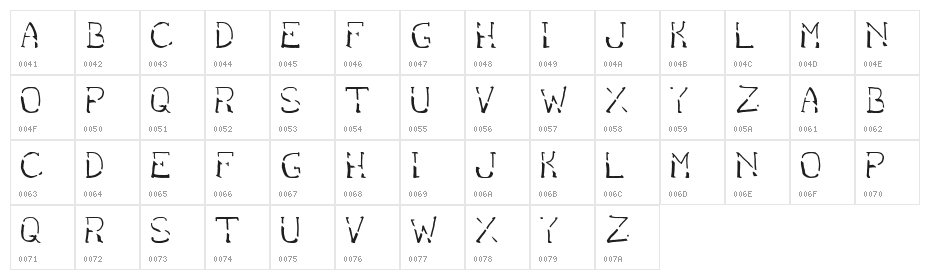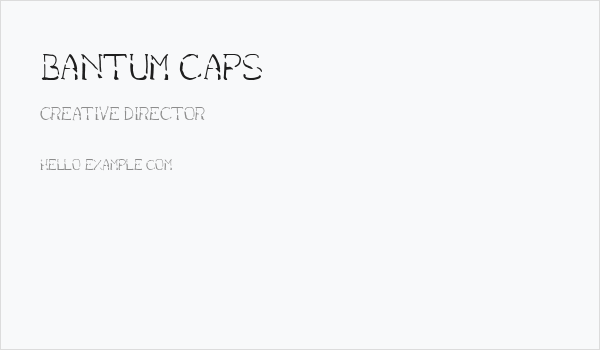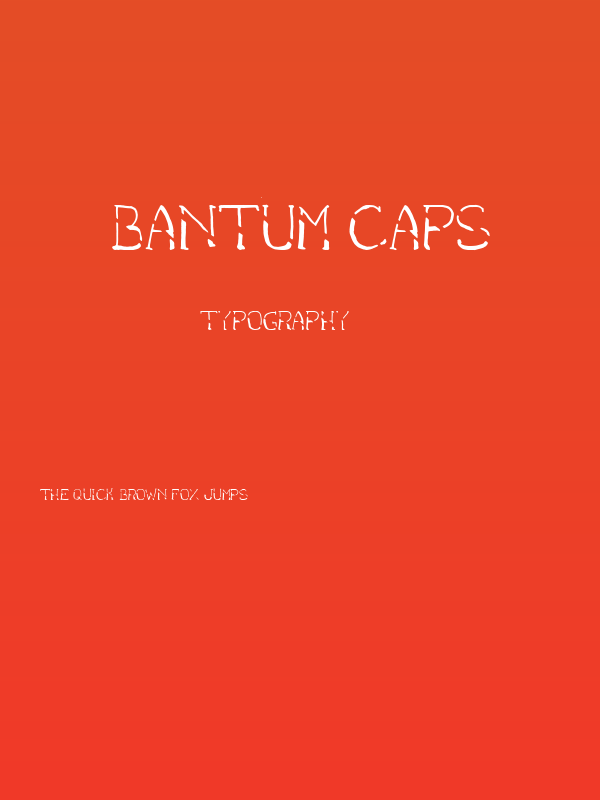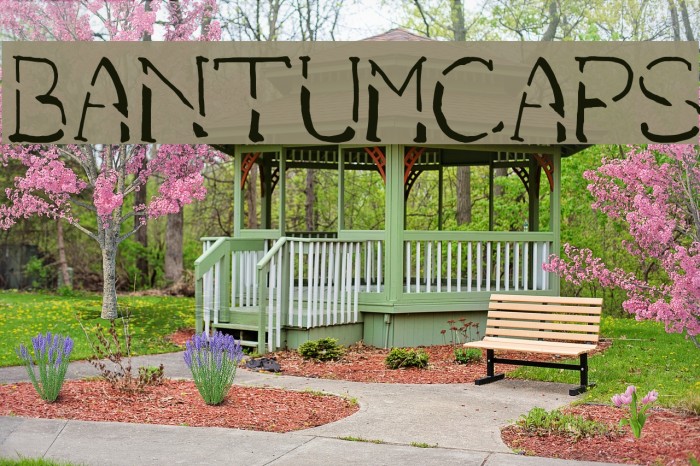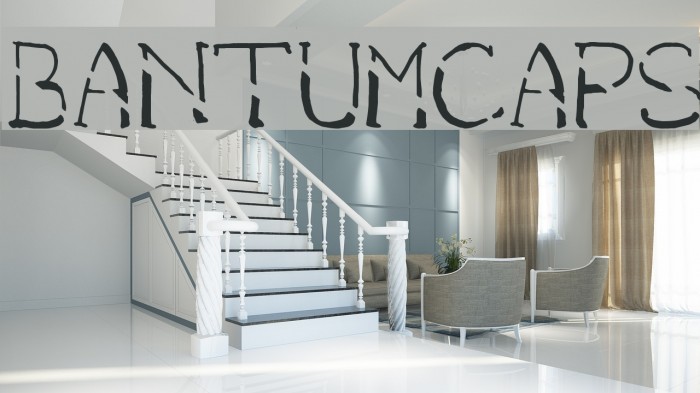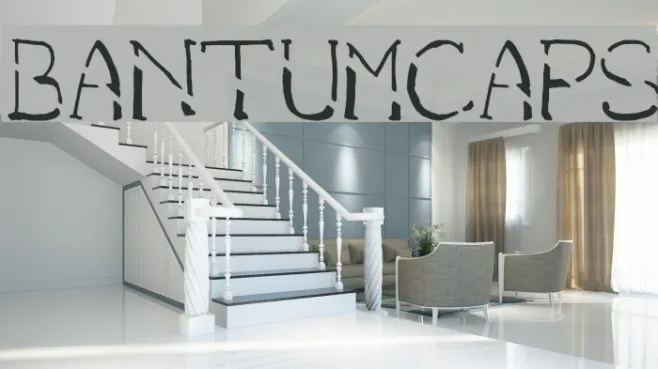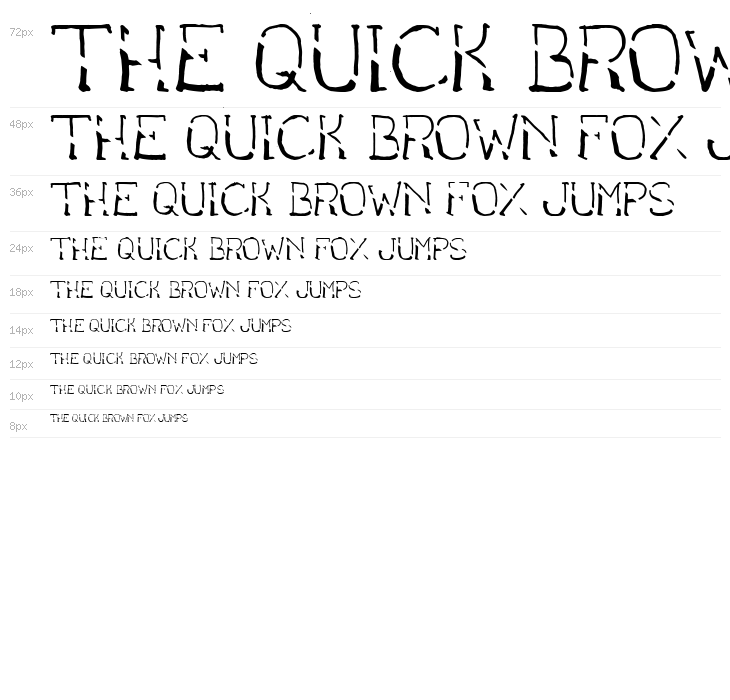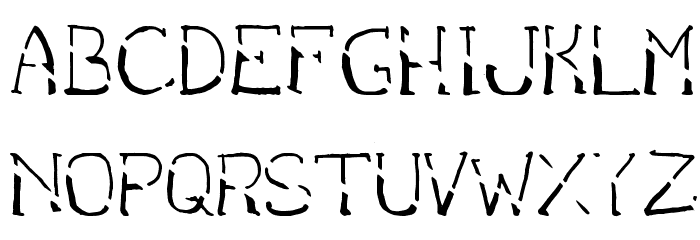
bantum caps Font
bantum caps Description
This font features a rugged, distressed style with uneven edges and a hand-crafted appearance. The characters are bold and have a stencil-like quality, giving them a unique, artistic flair. The uppercase letters are consistent in height, while the strokes vary in thickness, adding to the font's dynamic and textured look. The irregularities in the letterforms suggest a vintage or industrial aesthetic, making it suitable for projects that require a bold, eye-catching typeface with a touch of character.
| Overall Style | Vintage, Industrial |
| Proposed Projects | Ideal for posters, album covers, branding for rustic or industrial-themed businesses, and any design needing a bold, artistic touch. |